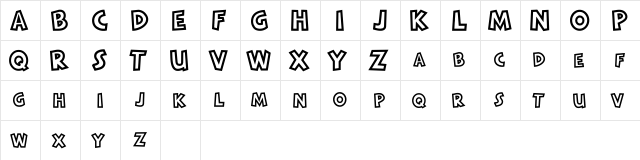
RADITAS CARTOON Regular
Design Context for RADITAS CARTOON Typeface
RADITAS CARTOON has an approachable, lighthearted character — its loose, expressive forms are well-suited to children's content, casual branding, and fun-first design.
Great for children's books, toy packaging, family event branding, and casual consumer-facing design.
Font Pairing: Pairs well with a rounded or humanist sans for body copy, maintaining the friendly tone without relying on RADITAS CARTOON to carry extended reading.
Pro Tip: Avoid using RADITAS CARTOON for long passages of text — it works best for headlines, labels, and short calls to action.